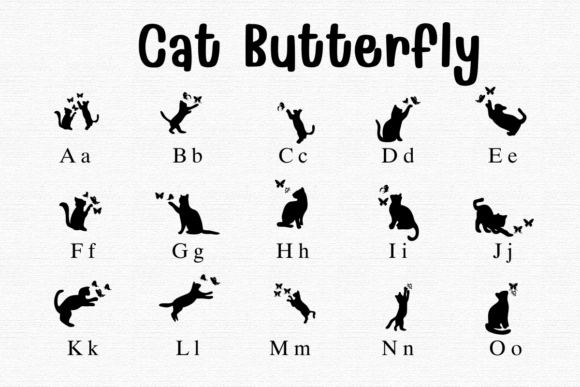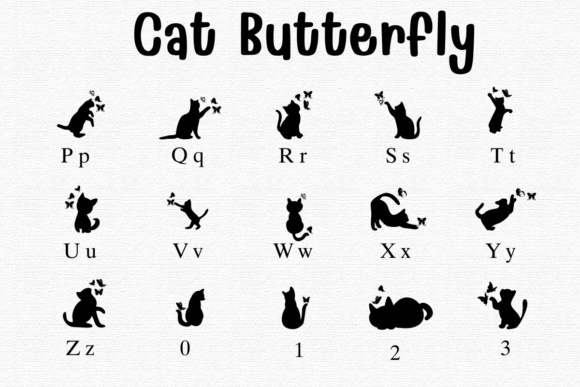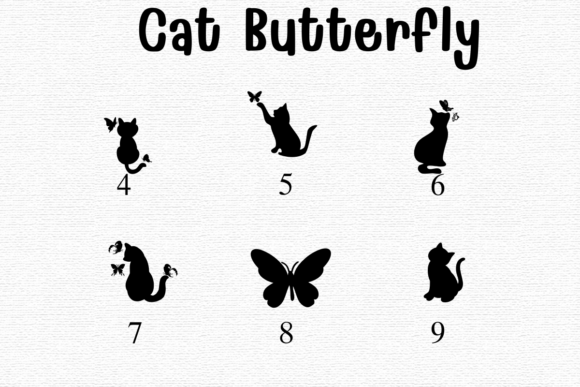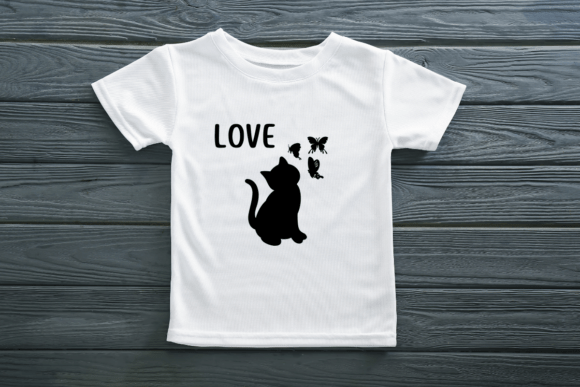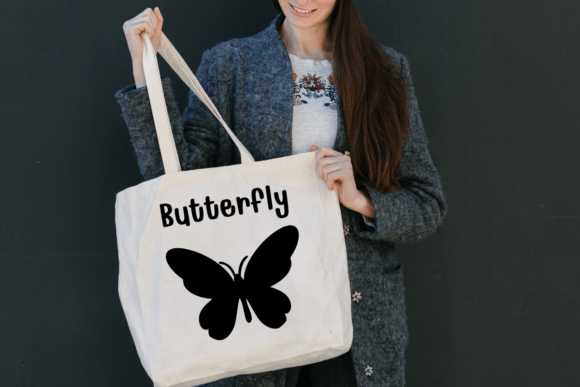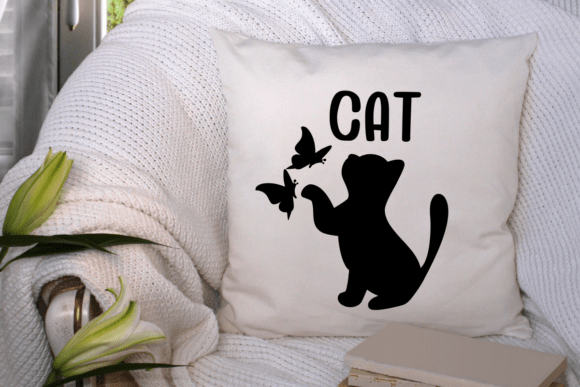
A Whimsical Touch for Your Creative Projects
Have you ever sat down at your desk, staring at a blank page or screen, trying to spark some creativity? You know, that moment when inspiration seems elusive, and all you need is a gentle nudge to get those creative juices flowing? That’s exactly when fonts like Cat Butterfly Font come into play.
This delightful dingbats font is a treasure trove of playful silhouettes, featuring cats and butterflies in adorable moments of curiosity and grace. Whether you’re designing craft projects, greeting cards, stickers, logos, or children’s themes, the Cat Butterfly Font adds a whimsical and cozy touch that’s sure to captivate your audience. As a designer, you know how valuable it is to have the right tools at your fingertips, and this font is a must-have for any cat lover or whimsical illustrator looking to add a personal touch to their work.
Cat Butterfly Font Key Features
- Unique Characteristics: The Cat Butterfly Font features a whimsical and playful design, with intricate details and a mix of modern and vintage elements, making it perfect for creative projects.
- Character Set: The font includes a wide range of characters, including uppercase and lowercase letters, numbers, punctuation marks, and special symbols, ensuring versatility in use.
Designer Review: Cat Butterfly Font
Overall, I think the Cat Butterfly Font is an interesting and quirky addition to any design project. ✨ I love the playful and whimsical feel it brings to the table. The font is perfect for those looking to add a touch of elegance and sophistication with a hint of whimsy.
One of the things I appreciate about this font is its versatility. ✨ It can be used for a variety of projects, from wedding invitations to children’s book illustrations. The font also comes in multiple weights and styles, making it easy to customize to suit your needs.
- Playful and whimsical feel
- Highly versatile
- Multiple weights and styles available
- May be too ornate for some projects
- Can be difficult to read in certain font sizes
- Lack of bold, condensed, and italic styles
Overall, I think the Cat Butterfly Font is a great choice for designers looking to add a touch of whimsy to their projects. However, it may not be the best choice for projects that require a more straightforward or modern aesthetic. ✨
Some common use cases for Cat Butterfly Font include:
- Custom logos and graphics
- Wedding invitations and decorations
Remember to experiment with different font sizes, styles, and pairings to get the most out of Cat Butterfly Font.